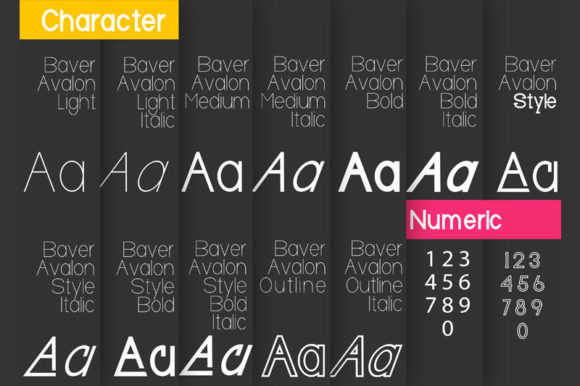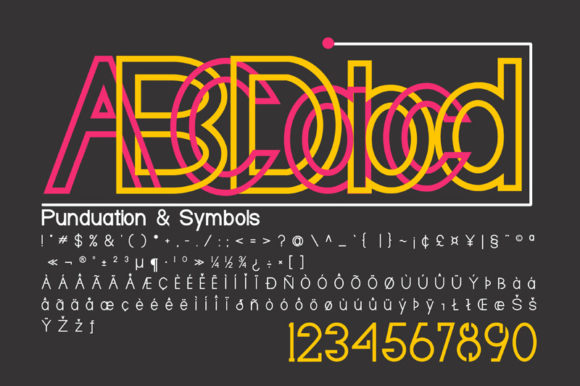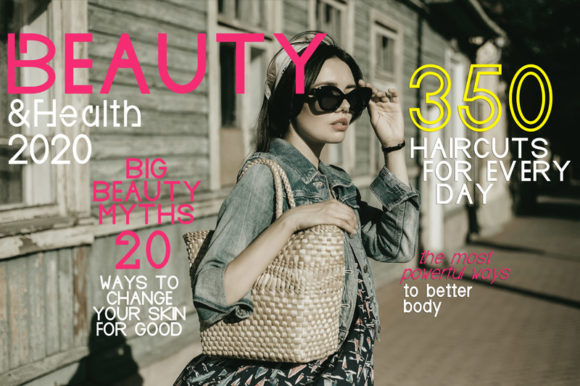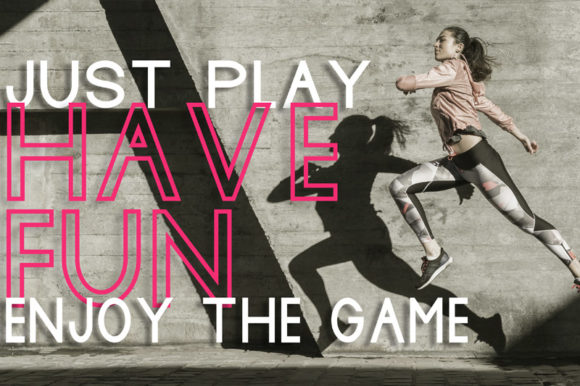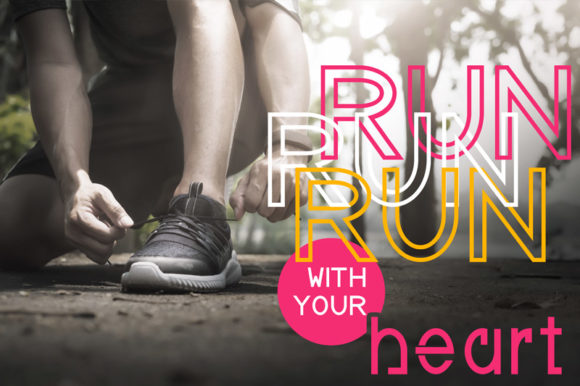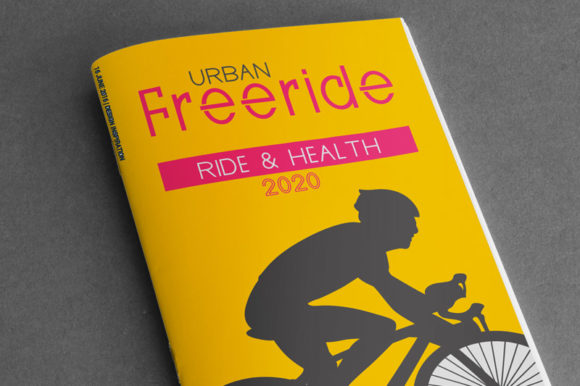
Baver Avalone Font: Elevate Your Designs with a Fun and Versatile Display Font
Are you tired of using the same old fonts in your designs? Look no further than Baver Avalone, a fun and versatile display font that’s sure to take your projects to the next level. With its unique variations, Baver Avalone offers endless possibilities for creative expression, making it a must-have for designers and crafters alike.
What is Baver Avalone Font?
Baver Avalone is a display font designed to make a statement. Its playful and energetic vibe is perfect for headlines, titles, and any other design element that needs to grab attention. The font comes in different variations, allowing you to mix and match to create a truly one-of-a-kind look.
Key Features of Baver Avalone Font
- Multiple Variations: Baver Avalone offers a range of variations, giving you the flexibility to experiment with different styles and combinations.
- Fun and Playful: The font’s playful vibe is perfect for designs that need to be energetic and engaging.
- Easy to Read: Despite its decorative nature, Baver Avalone remains easy to read, making it suitable for use in a variety of design applications.
- Highly Versatile: Use Baver Avalone for anything from posters and flyers to social media graphics and website headers.
How to Use Baver Avalone Font in Your Designs
Baver Avalone is incredibly easy to use, even for those who are new to design. Here are a few tips to get you started:
- Experiment with Combinations: Try pairing different variations of Baver Avalone to create a unique look that reflects your brand or design style.
- Use it as a Headline Font: Baver Avalone is perfect for headlines and titles, where its playful vibe can really shine.
- Add it to Your Brand Kit: Make Baver Avalone a part of your brand’s visual identity by incorporating it into your brand kit.
Benefits of Using Baver Avalone Font
So why choose Baver Avalone over other display fonts? Here are just a few benefits:
- Stand Out from the Crowd: With Baver Avalone, you can create designs that truly stand out from the competition.
- Save Time: The font’s versatility means you can create a wide range of designs without having to switch between multiple fonts.
- Easy to Pair: Baver Avalone pairs well with a variety of other fonts, making it easy to find a complementary font for your design.
Who is Baver Avalone Font Suitable For?
Baver Avalone is perfect for:
- Graphic Designers: Add Baver Avalone to your font collection and take your designs to the next level.
- Crafters: Use Baver Avalone to add a personal touch to your craft projects, from papercraft to sewing.
- Small Business Owners: Create professional-looking designs without breaking the bank.
Baver Avalone is more than just a font – it’s a design solution. With its fun and playful vibe, multiple variations, and high versatility, it’s the perfect addition to any design project. Whether you’re a seasoned designer or just starting out, Baver Avalone is sure to inspire your creativity and help you create designs that truly stand out.